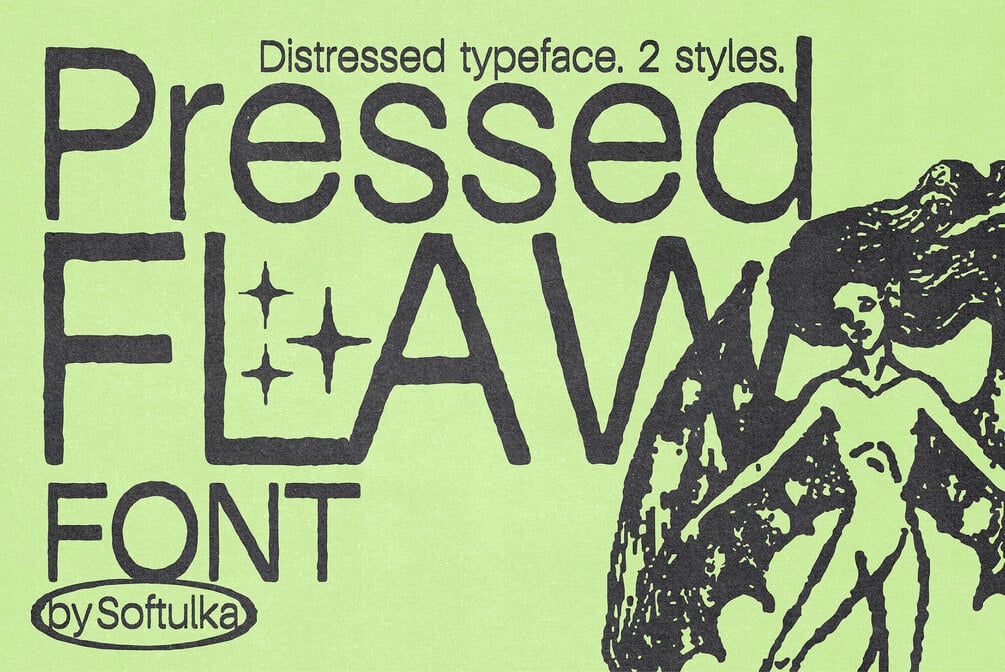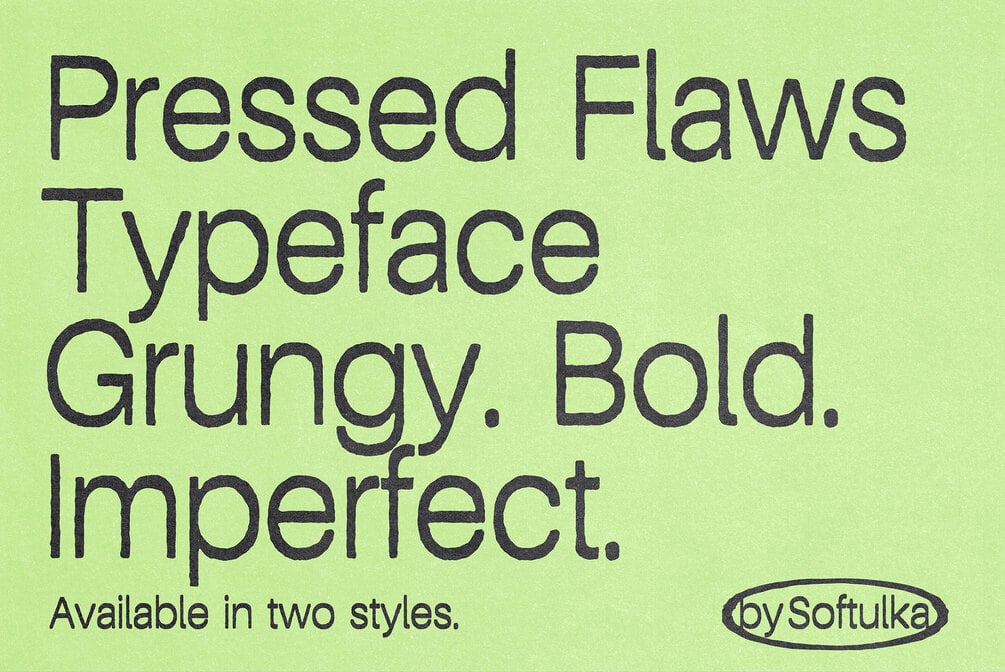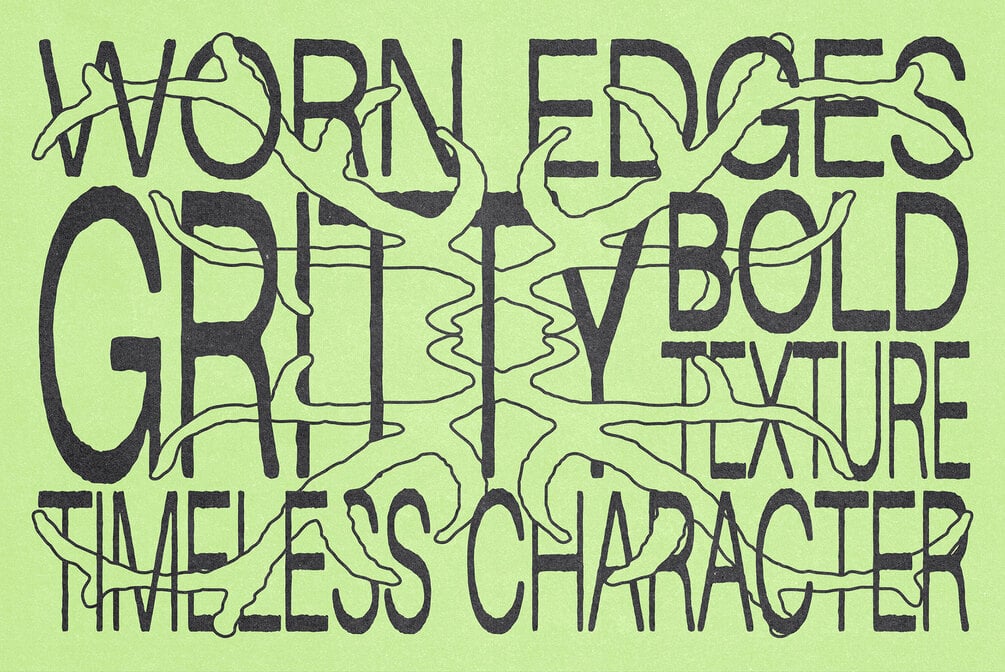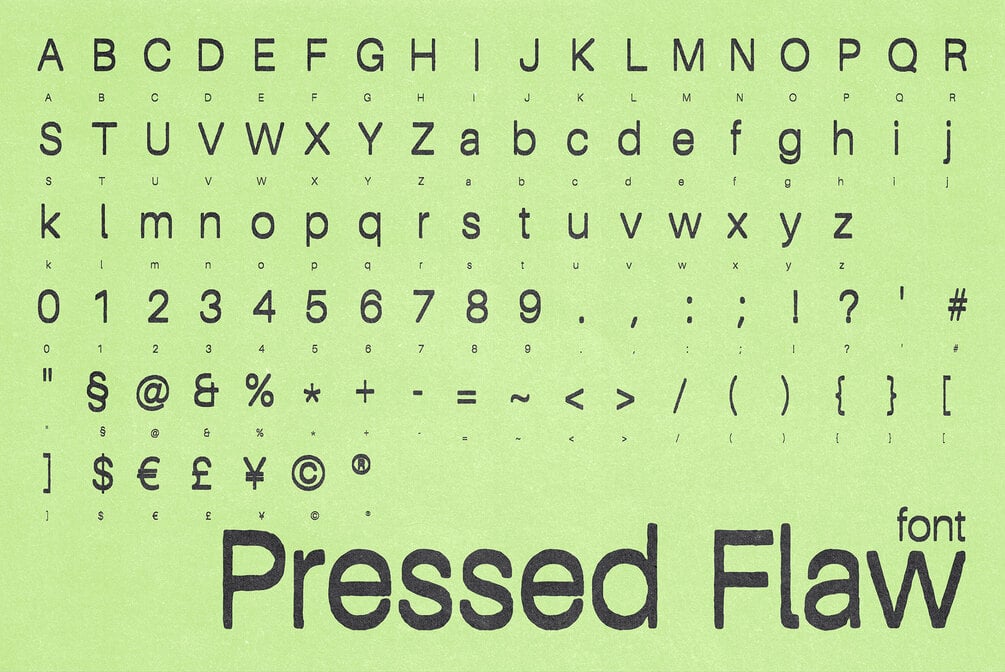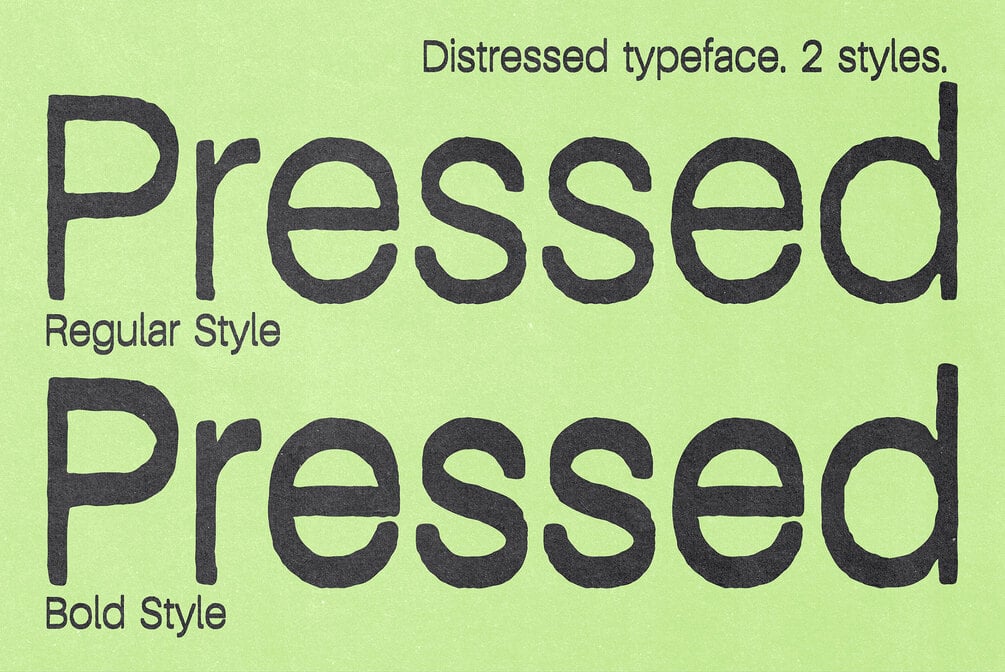
Pressed Flaws Textured Typeface
Pressed Flaws is a distressed typeface available in two styles: Regular and Bold. Designed to mimic the imperfections of worn-out printing or an aged typewriter, this textured typeface features grungy, uneven edges on its letters. Its irregular texture gives a raw, industrial, and vintage vibe, making it ideal for projects that require an edgy, rugged, or handcrafted aesthetic. Perfect for posters, album covers, branding, Pressed Flaws stands out in both headline and display settings.
Designer: Iuliia Mazur (Softulka)